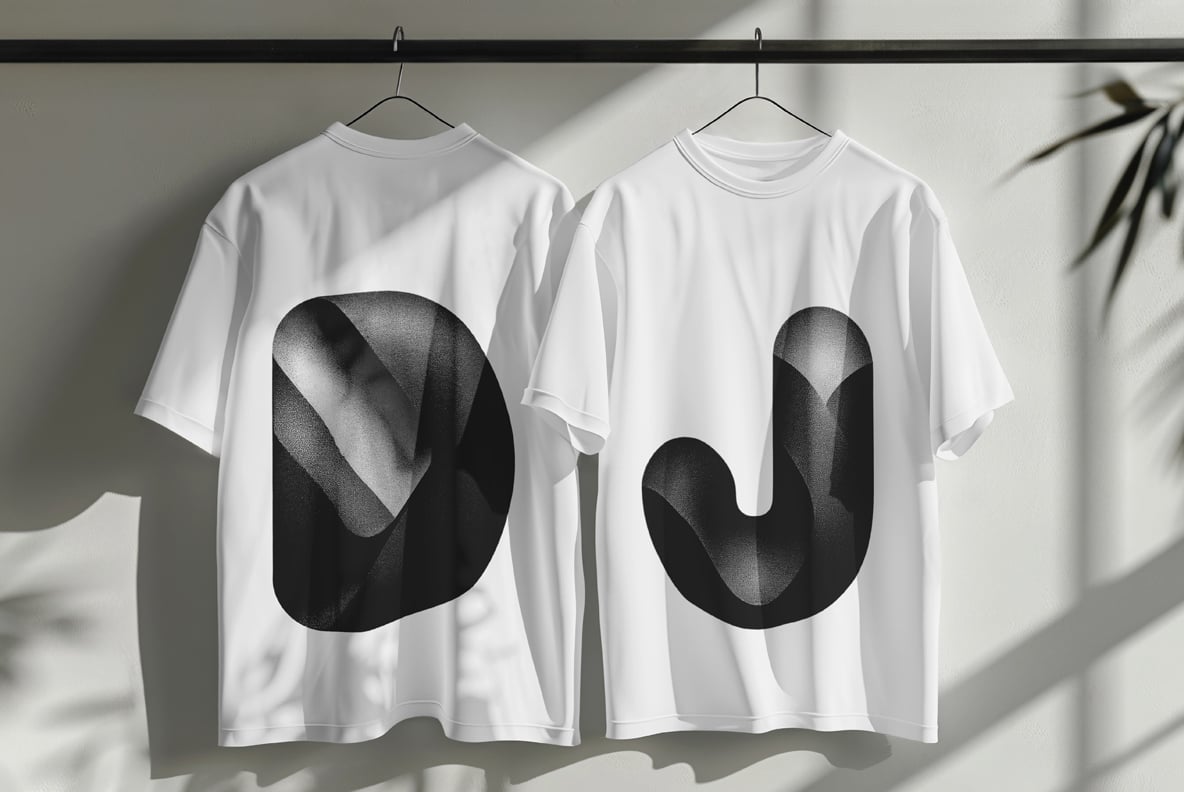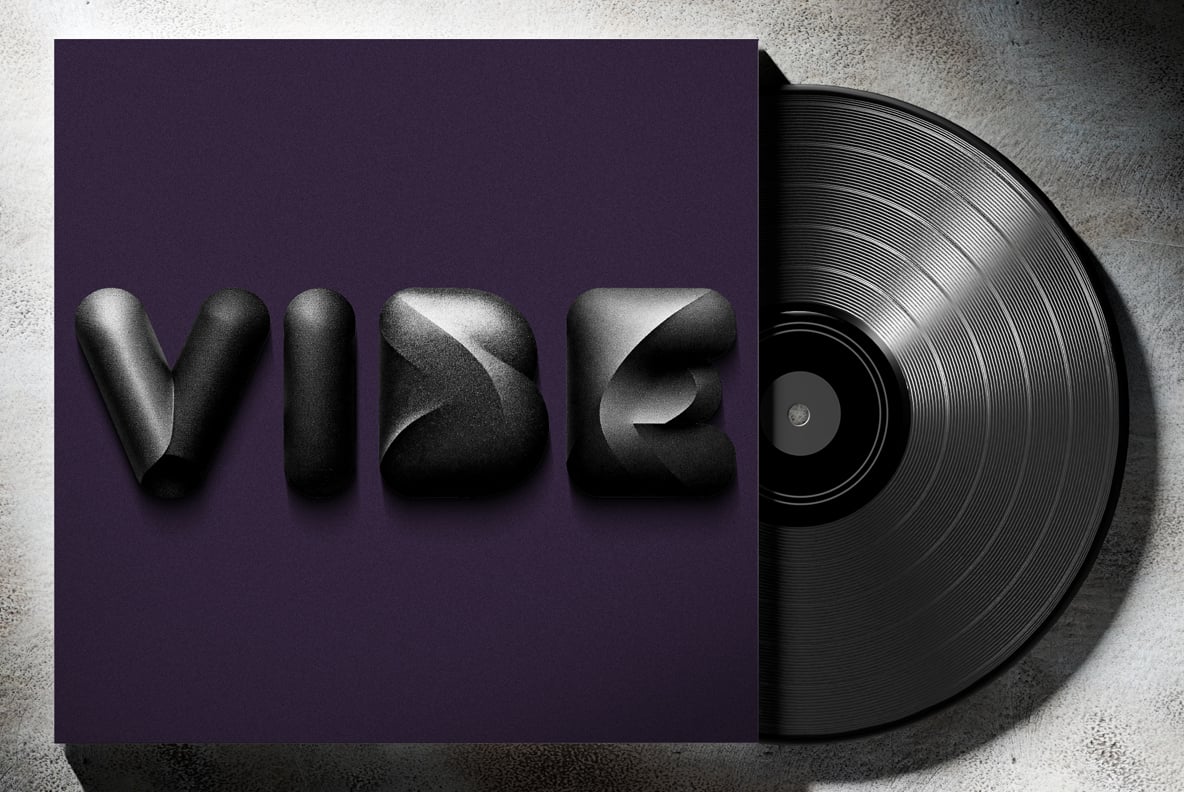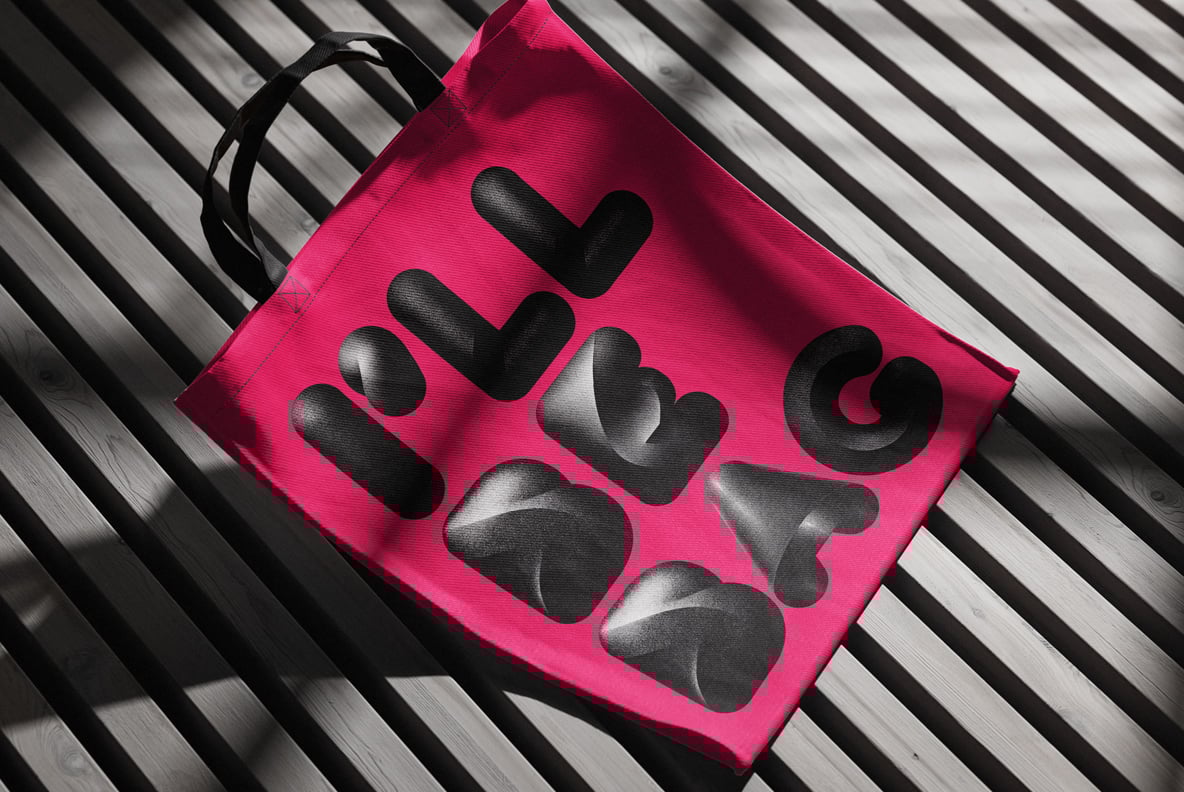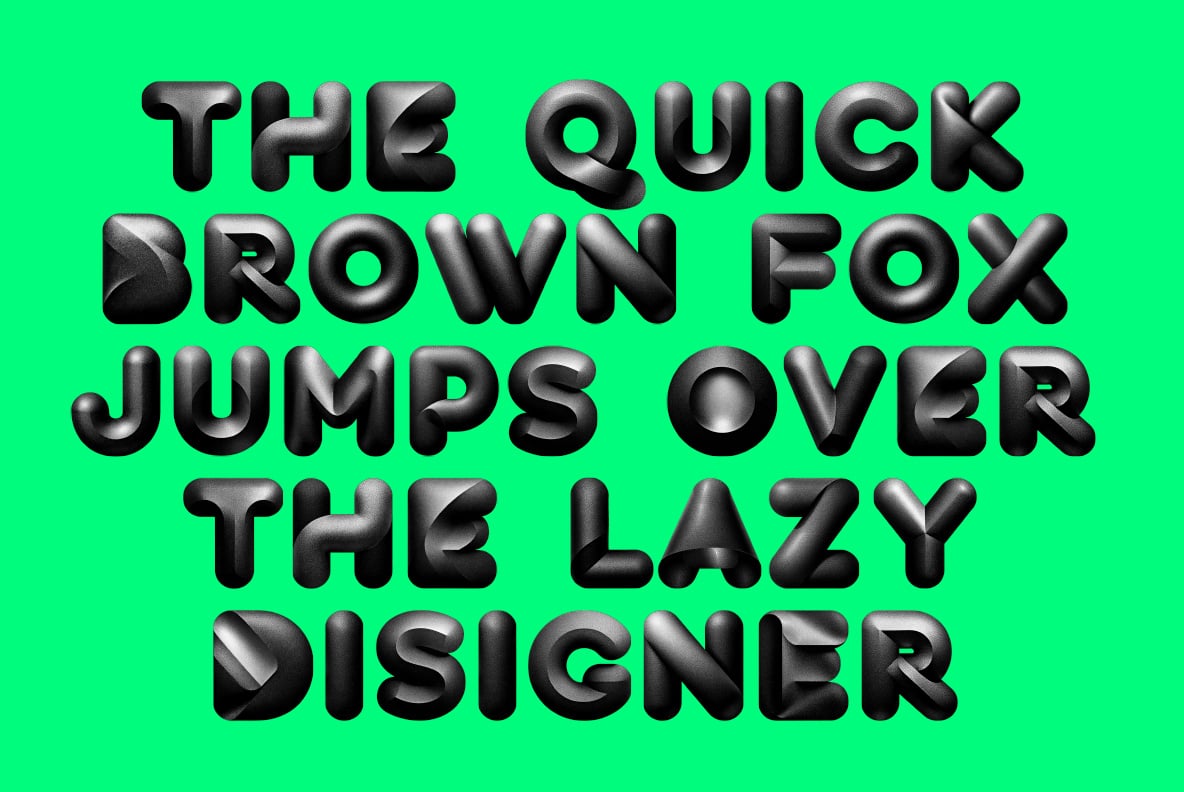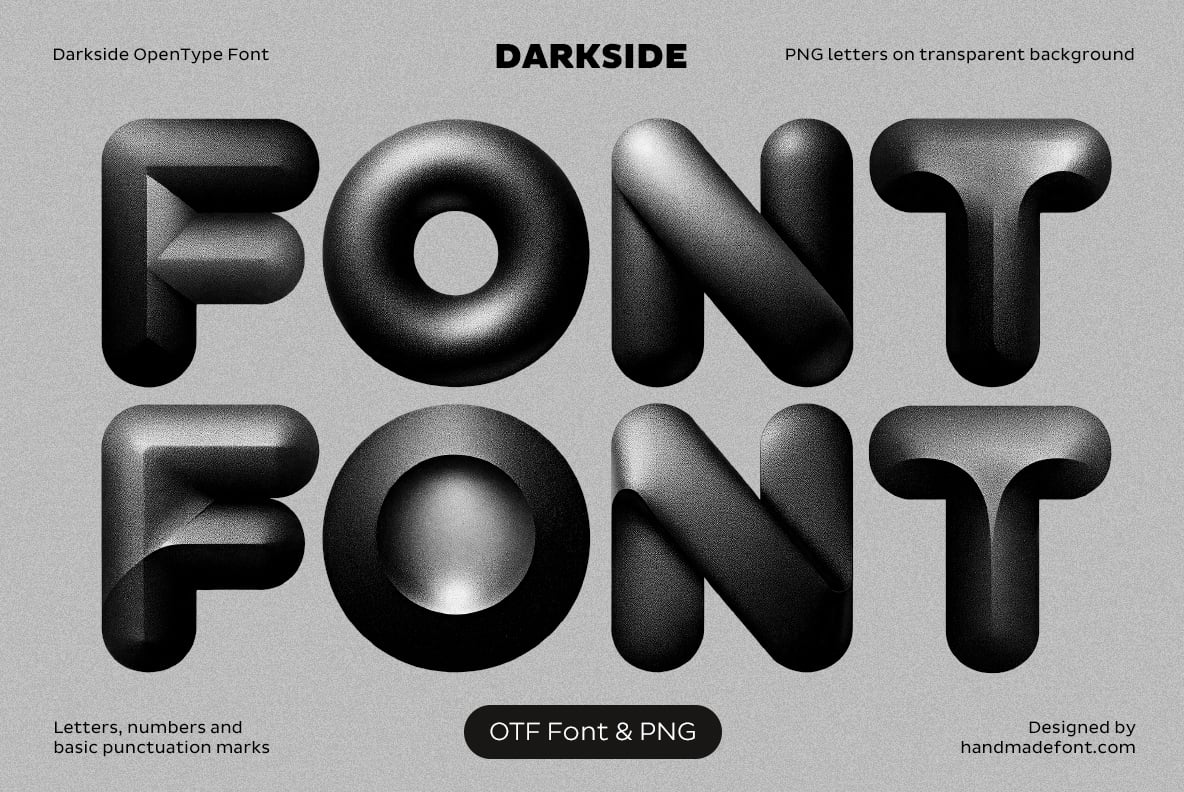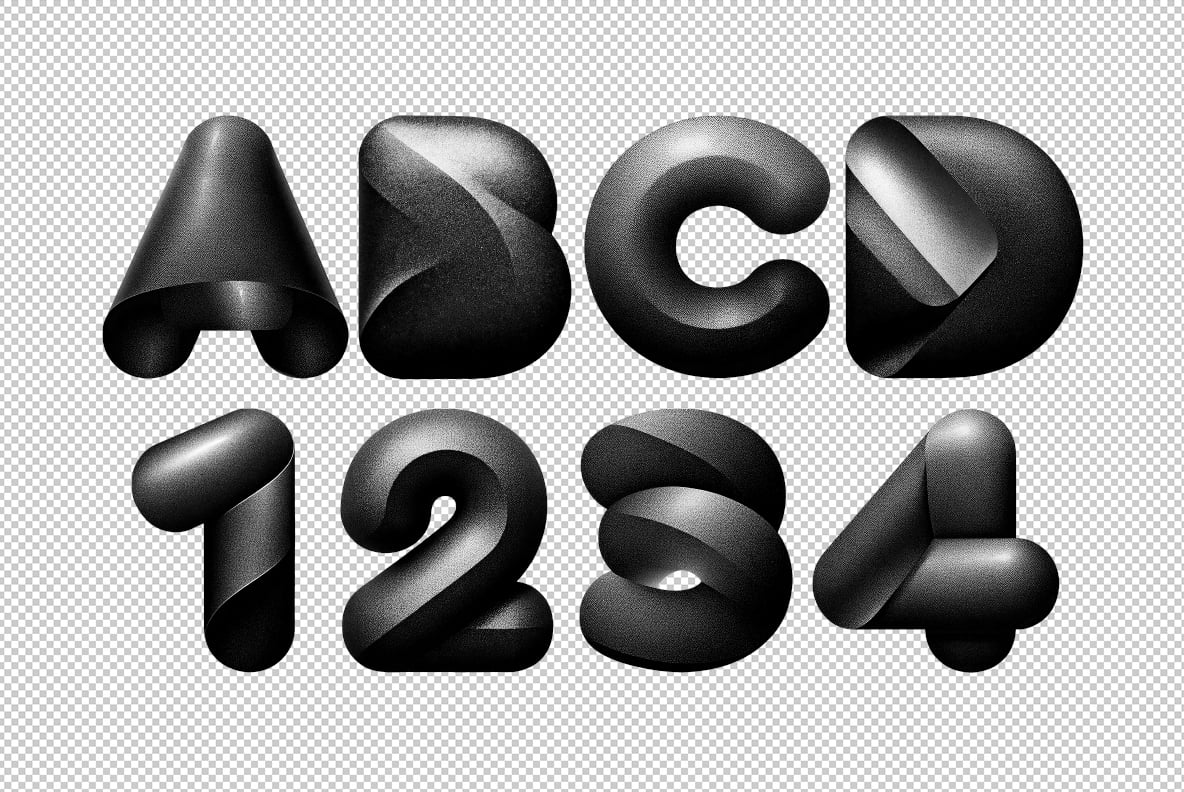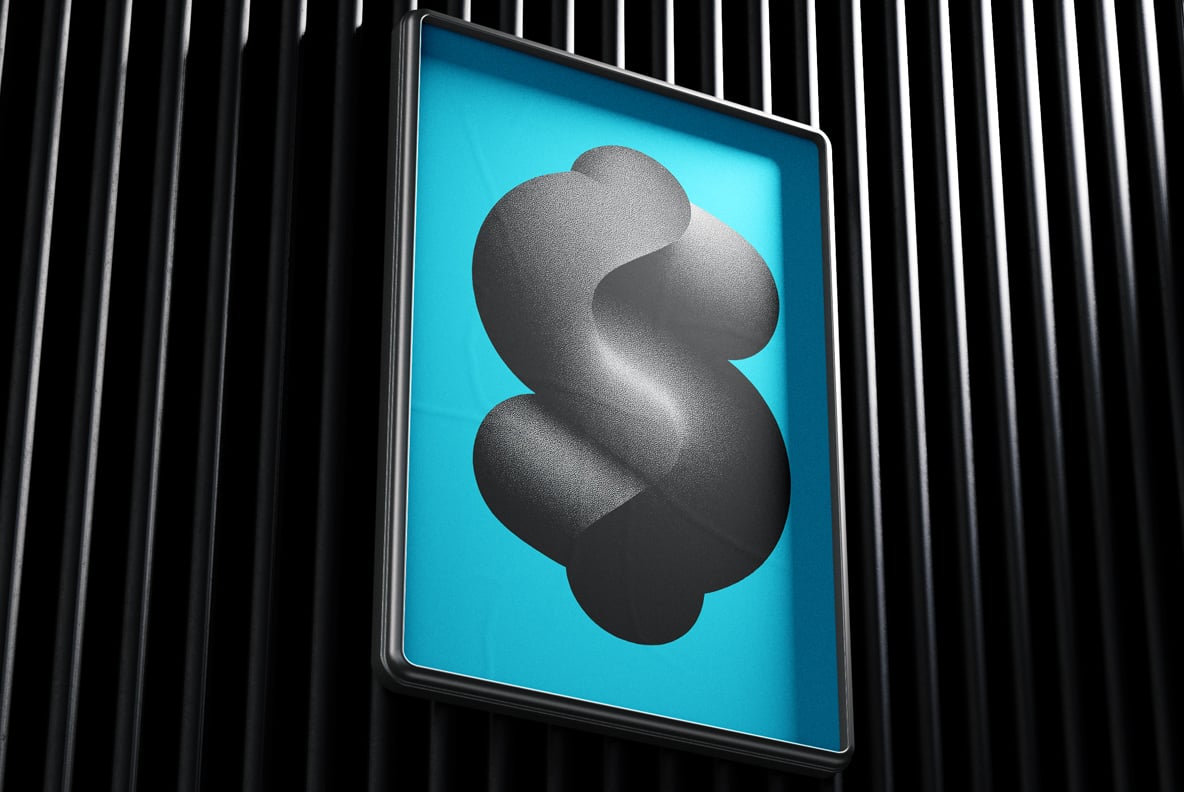
Darkside Font
Darkside Font is where bold design meets deep space drama. With slick, rounded forms and a dark metallic gradient, each letter feels like it's been chiseled from moon rock and polished by a black hole. This futuristic, sculptural typeface is perfect for album covers, fashion branding, nightlife posters, or anything that craves a sleek, edgy vibe. It whispers cyberpunk and screams high-gloss rebellion. Darkside isn’t just a font—it’s a statement. Mysterious, modern, and magnetic, it turns every word into a design object. Use it when you want your message to land like thunder in the void. Welcome to the dark side.